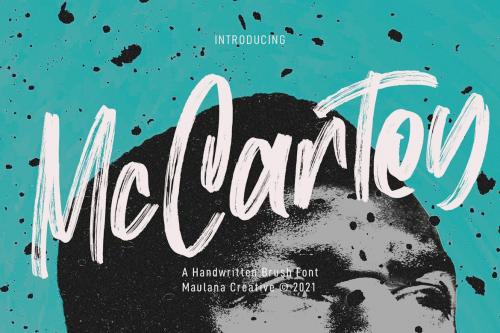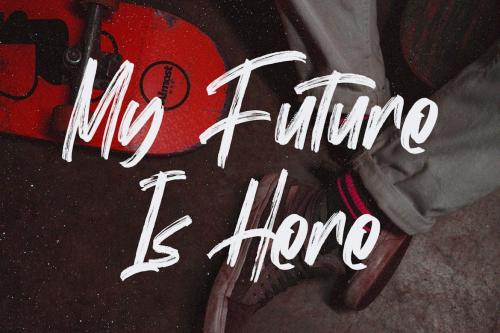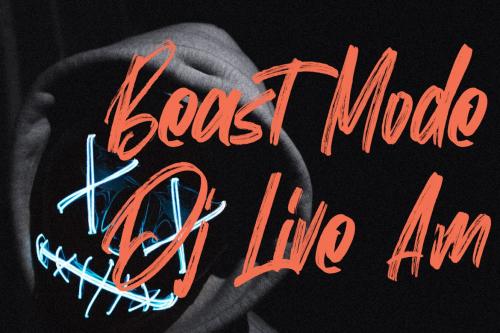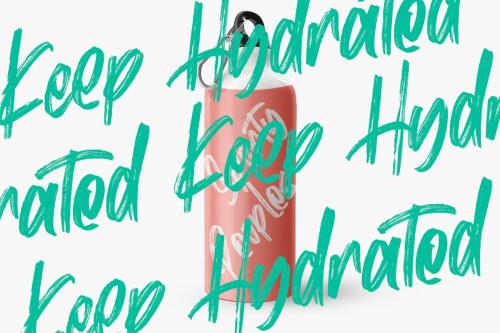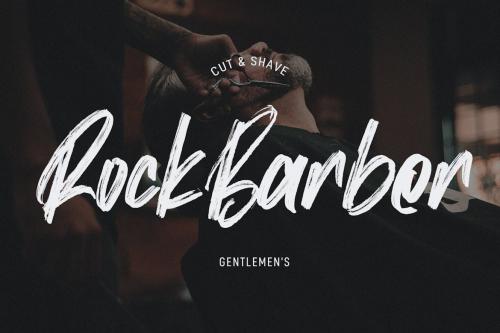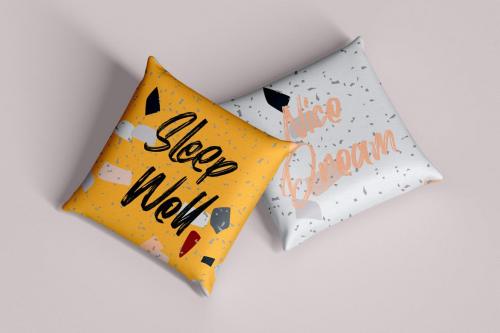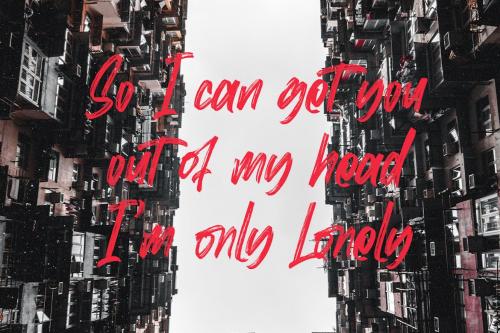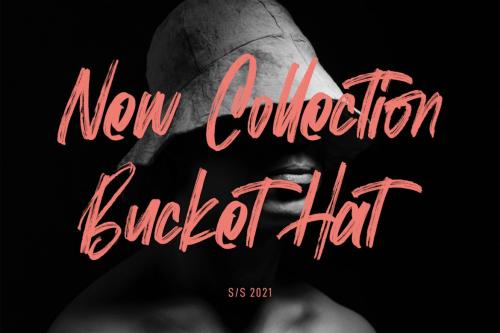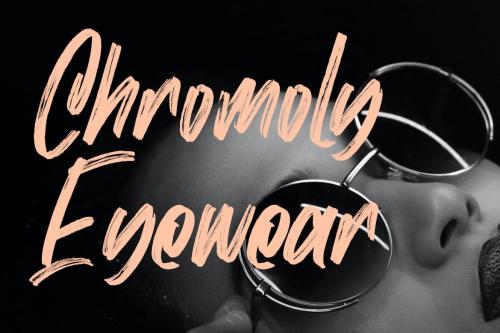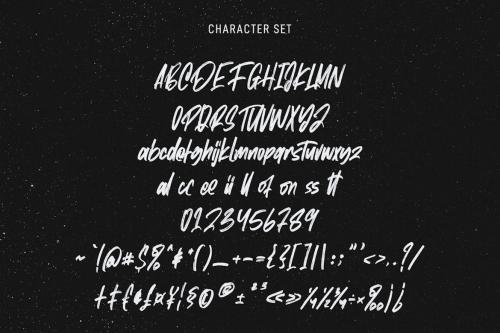
麦克卡特刷体显示字体
Mc Cartey Brush Display Font
Mc Cartey is a Fancy Handwritten Brush Display font. With raw brush stroke, slanted and fun character with a ligatures. To give you an extra creative work. Mc Cartey font support multilingual more than 100+ language. This font is good for logo design, Social media, Movie Titles, Books Titles, a short text even a long text letter and good for your secondary text font with sans or serif. Make a stunning work with Mc Cartey font.